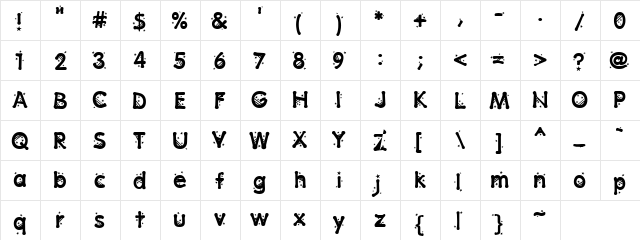
PC Bang Regular
Design Context for PC Bang Typeface
PC Bang takes a measured approach to typography — its balanced proportions and neutral character make it a reliable workhorse for both digital and print work.